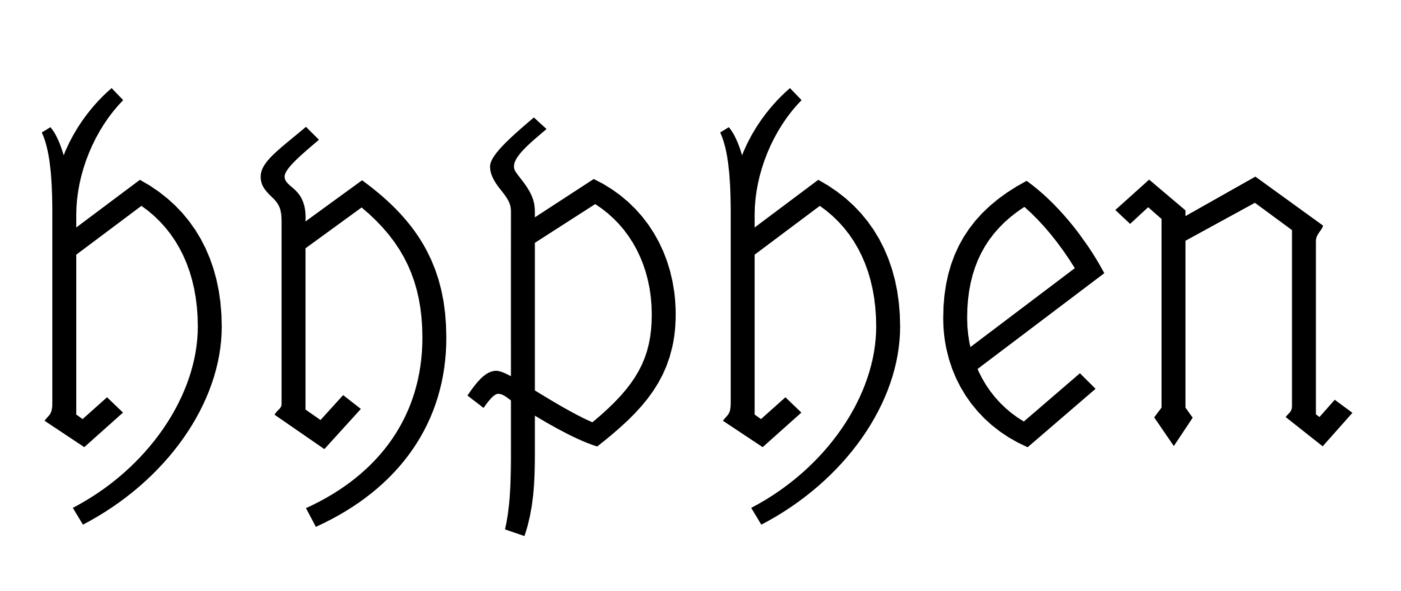
blackletter legibility
Hey, what do you think about letter "k" and "t" in this font. It's so little difference between them. It's unbelievable that people really used it in newspaper. "S" and "V" glyph are intresting too. It's really unreadable for someone who never saw Faktur before. But it's good for me. I think it will make the stronger effect in my project. You know... If it looks more "exotic" it will cause bigger culture shock :D Well, there is a lot of technical problems. For example - paper. I want to use thick offset paper, but it's to white. I don't want to use colored paper because it won't look realistic. So I need to print it early enough, put paper in sunny place and... wait. I think that would work but... well, you never know, right? Second problem - photos. I can't just convert it into grayscale. The raster will be to good. I need to simulate technology from '30 so there is a lot of work waiting for me. But there is one thing good for me - I'm working in a printing house, so I've got a lot of paper and professional RIP there. There's a lot of theoretical work too. Well, last time I'm wondering, in what type of culture we are participating in with present forms of communication design? What do you think? Oh... and of course, I'm attaching an image with "k", "t","S" an "V" :D
Hey, what do you think about letter "k" and "t" in this font. It's so little difference between them. It's unbelievable that people really used it in newspaper.
Believe it or not, but there are still people today that claim such blackletter fonts offer superior legibility over Roman typefaces. :winking:
Also, you do not need to weather the paper before printing on it. We keep some old unused paper around just for such purposes.
As for the k, t, S and V and other difficult to read blackletter letters: That’s why I created these (cv01–cv10 or ss01 of UnifrakturMaguntia):
Believe it or not, but there are still people today that claim such blackletter fonts offer superior legibility over Roman typefaces. :winking:
Well, it’s not that much more absurd than claiming that roman typefaces are better readable than blackletter ones. What is really weird is that these people think it’s self-evident or that they can actually prove it.
Isn't it all a matter of being exposed or not exposed to something? If I was used to read blackletter all my life and suddenly come across some text written in roman letters - for sure it would be a miracle for me how to read it. And the other way around: same thing. But with some exercise one manages to read blackletter quite fluently, from what I have experienced.
What would be the right way to scientifically proof the superiority in readability of one of the two letter systems? I have no clue, but I think it would be fairly difficult to test, because most people nowadays are so used to read roman letters. Maybe it works if one tests people that come from a completely different letter system background, such as Chinese or Cyrillic? *shrug*
Perhaps not if you look at all of blackletter, since there are too many variations. But if you were to look at just Fraktur vs. typical examples of Roman type, Fraktur has a fundamental problem Roman type simply doesn’t have: those awfully similar glyph shapes for different letters.
There is plenty of evidence that tells us that lack of distinctiveness between symbols (incl. letters) that carry different meanings is a problem: for people with all kinds of cognitive impairments (incl. but not limited to dyslexia, reduced vision), children who learn the alphabet (I can see this in Þorstelinchen every day) as well as people in general under less than ideal conditions (reading a highway sign through a rain-streaked windshield, reading a badly degraded old newspaper etc. etc. etc.)
When we argue about ẞ (capital ß), we frequently reject designs for being “too similar” to B. Nobody even questions why this might be a problem; it’s just assumed as a given. I would argue that even the worst B/ẞ pairs we’ve seen probably are still a lot more dissimilar than J/I and ſ/f are in a typical Fraktur.
The degree of dissimilarity between letters can be measured objectively, of course, using image processing algorithms. Once we accept the premise that lack of distinctiveness is a problem, I’m not sure what else there is to do.
Perhaps not if you look at all of blackletter, since there are too many variations. But if you were to look at just Fraktur vs. typical examples of Roman type, Fraktur has a fundamental problem Roman type simply doesn’t have: those awfully similar glyph shapes for different letters.
By the way: that difference between I and J is a rather recent invention. The typical Fraktur, as used over centuries, would use the same glyph for I and J.
Fraktur has a fundamental problem Roman type simply doesn’t have: those awfully similar glyph shapes for different letters.
Roman type is not free from that either. There is, most prominently, I and l (which look identical in this edit interface). Some dyslexics have trouble telling b, d, q and p apart – a problem that is probably alleviated in blackletter. You could also start arguing that blackletter has more ascenders. I am not saying that you can draw a direct comparison between either of these aspects, or am even claiming that one is actually better; but it’s just not that simple.
The only way to decide this question is to have hundreds of subjects only exposed to one type of fonts from birth or strictly equally exposed to both types of fonts and then make reading experiments with them at a certain age. As this is highly unethical, I am being agnostic about this question: We cannot know which is better.
Yes, the classic blackletter "y" is no good for text, but the descending "h" is golden.
Just noticed: the word hyphen doesn’t really go well with the idea of superior blackletter distinguishability/legibility.
Well the claim is usually only made with respect to the German language and thus unaffected by your finding. (Not that I support the claim.)
By the way: You seem to be working on something blackletter-related. May I ask what?